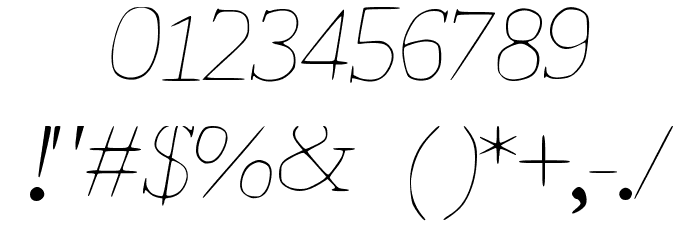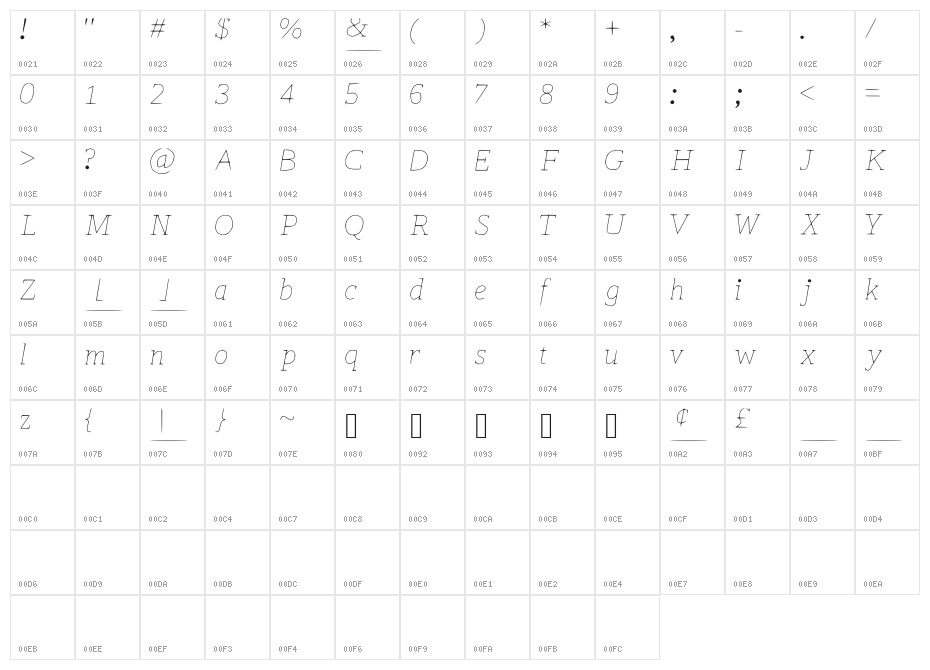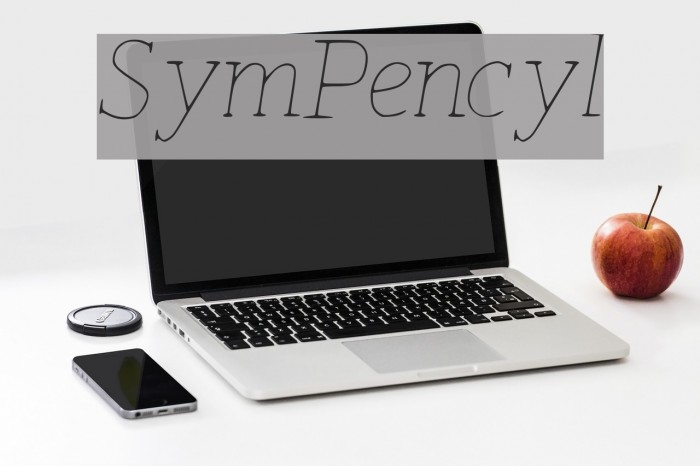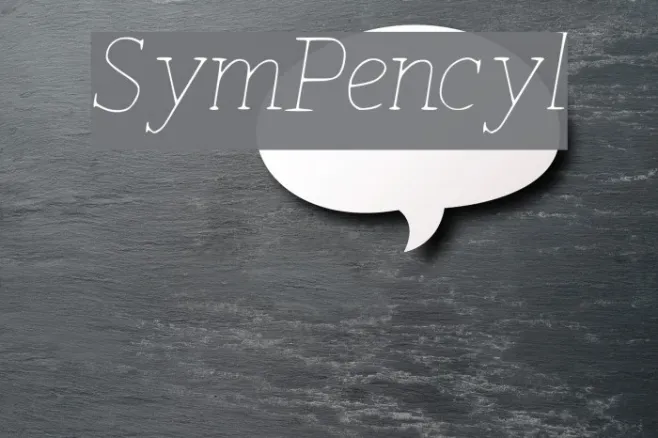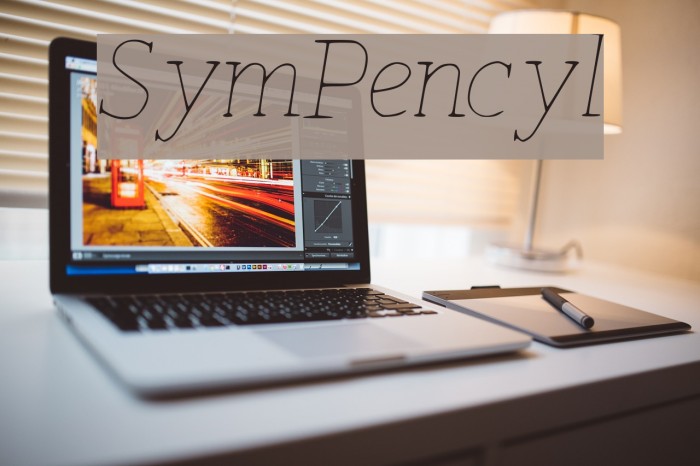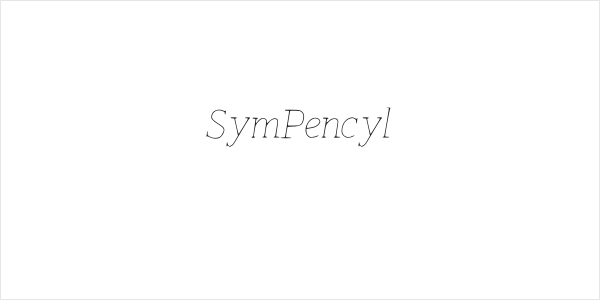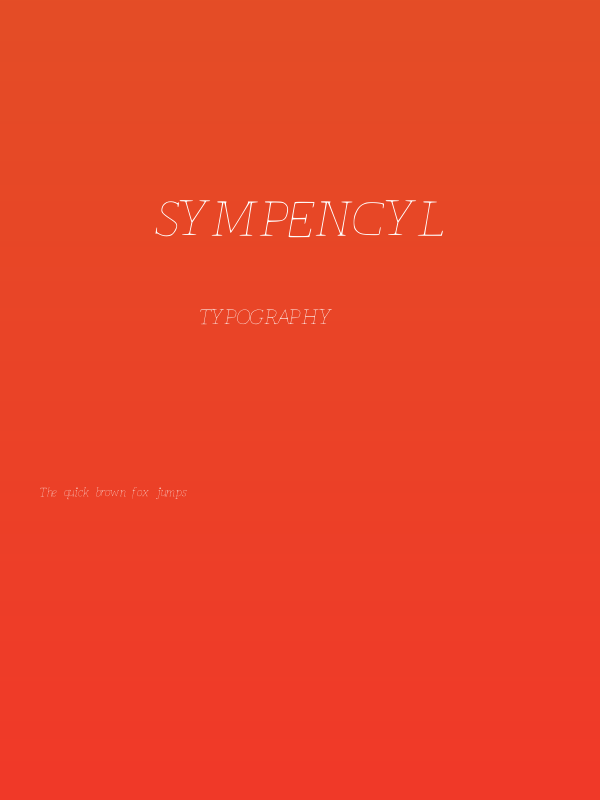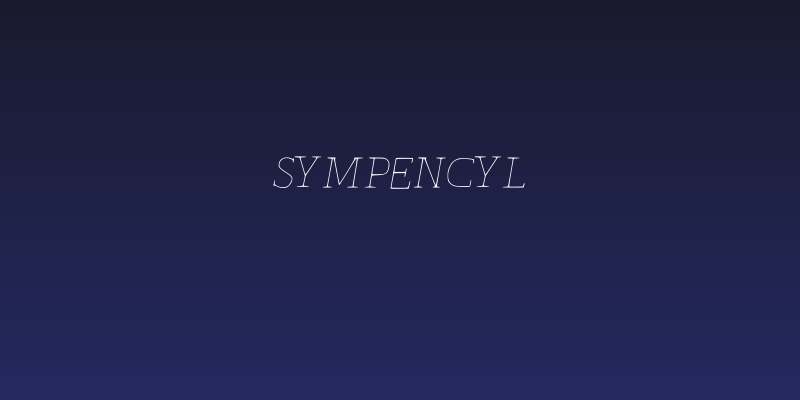
SymPencyl Font
SymPencyl Description
This font exhibits a refined and elegant style, characterized by its thin, delicate strokes and slight slant, giving it a sophisticated and modern appearance. The uppercase letters are tall and narrow, with a consistent height, while the lowercase letters maintain a harmonious balance with a slightly rounded form. The numerals are clean and straightforward, complementing the overall aesthetic. Special characters are designed with the same thin strokes, maintaining uniformity across the set. The font's airy and open feel is enhanced by its generous spacing, making it highly legible and suitable for various design applications.